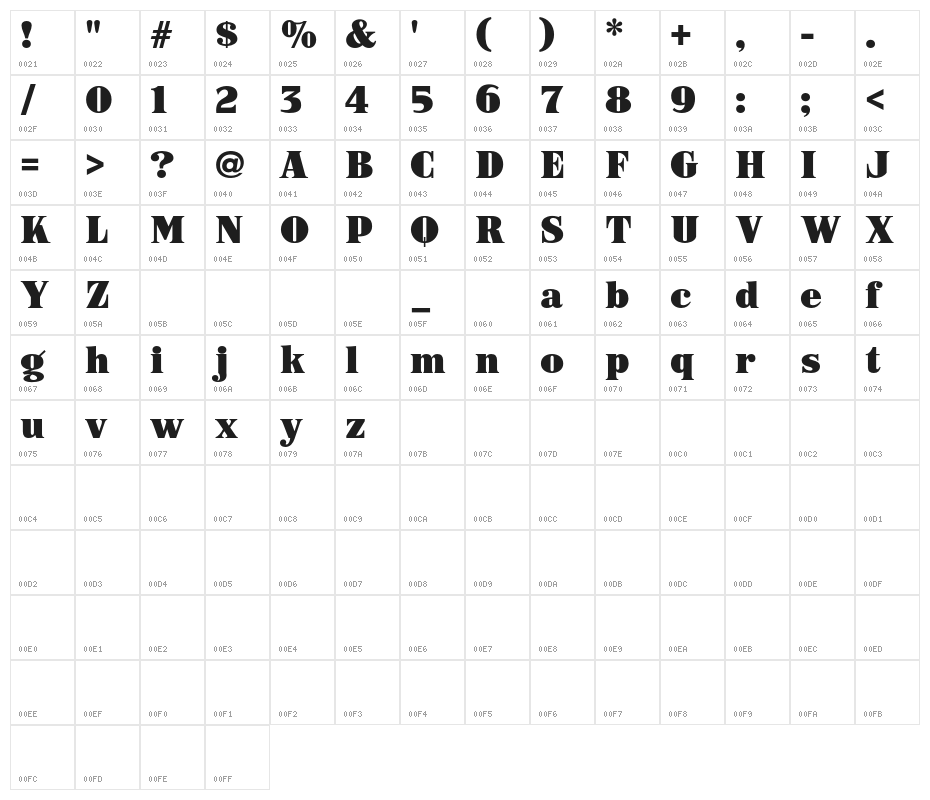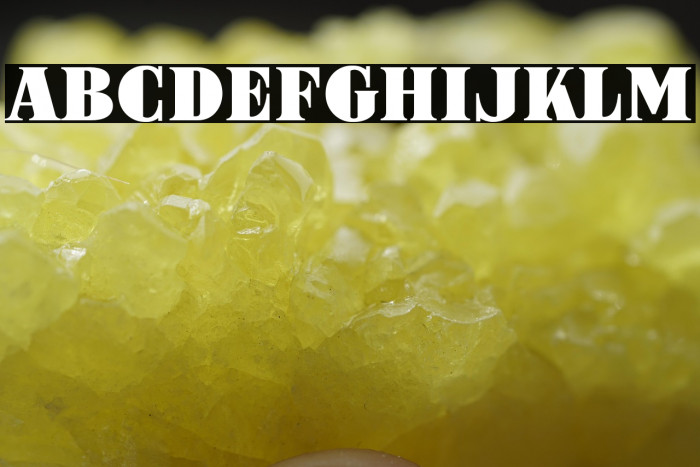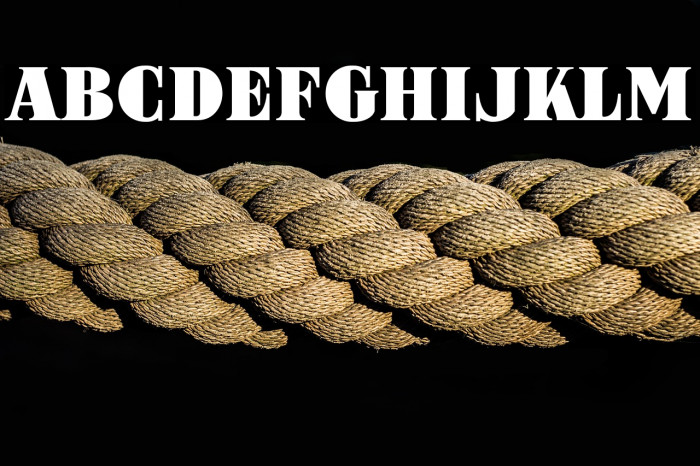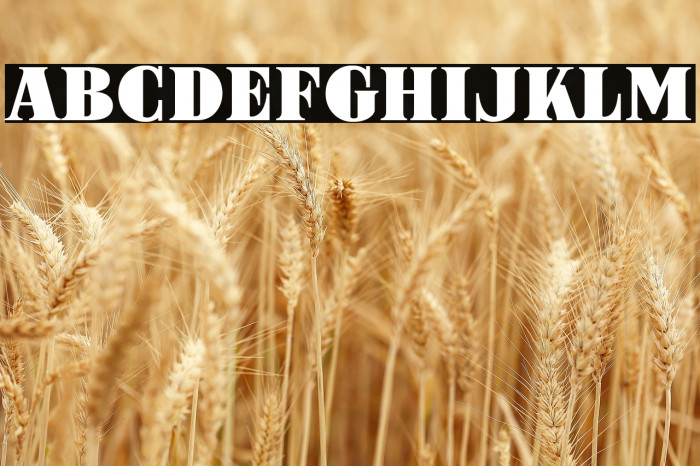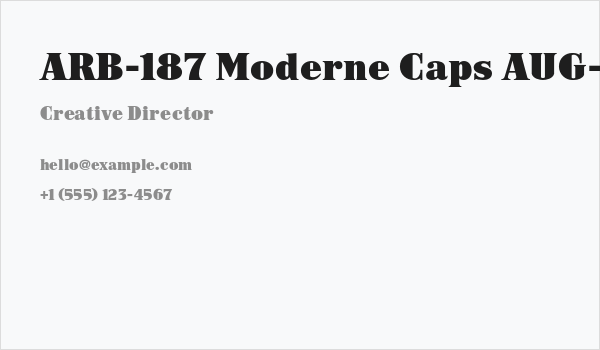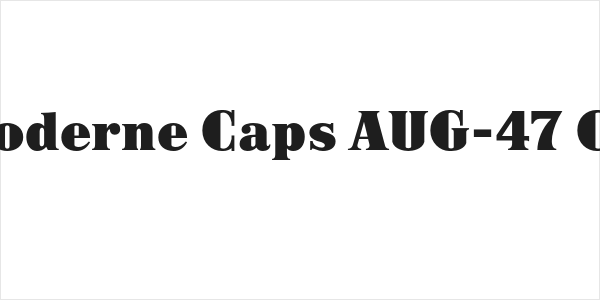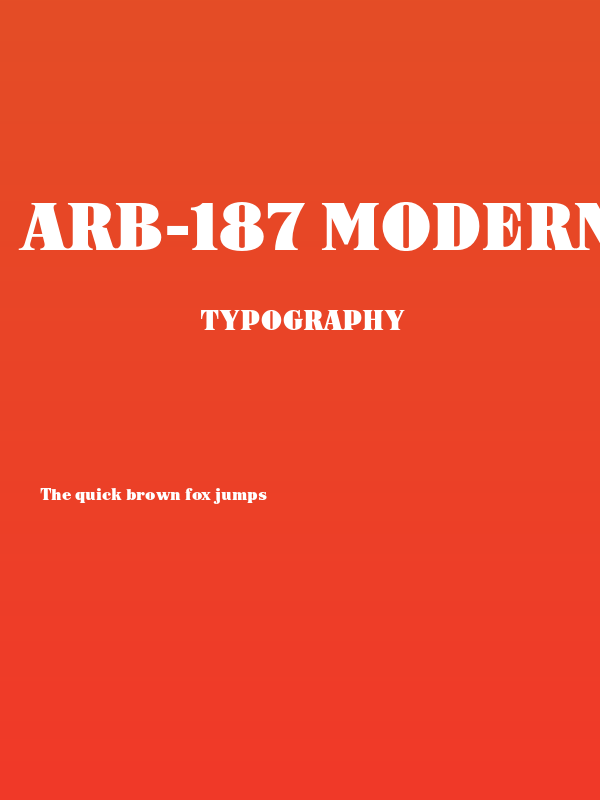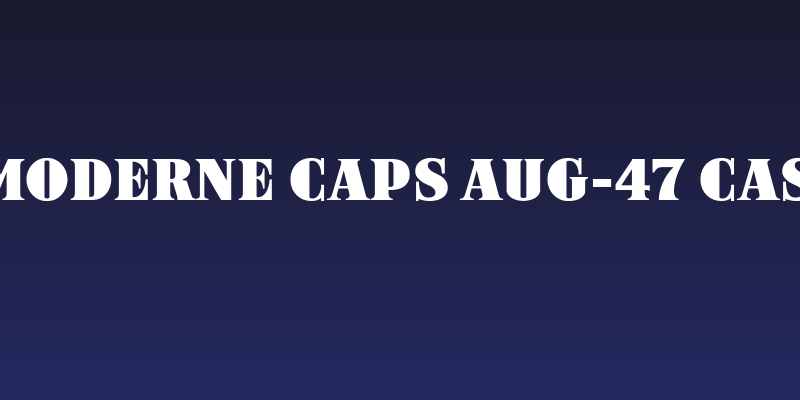
ARB-187 Moderne Caps AUG-47 CAS Normal Font
ARB-187 Moderne Caps AUG-47 CAS Normal Description
This font features bold, strong characters with a classic serif style. The uppercase letters are particularly striking, with thick vertical lines and contrasting thin horizontal strokes, giving them a robust and authoritative appearance. The lowercase letters maintain a similar weight and style, ensuring consistency throughout the typeface. The numerals are equally bold, making them stand out clearly. Special characters are included, each designed with the same attention to detail and weight, ensuring they integrate seamlessly with the letters and numbers. The overall design is reminiscent of traditional serif fonts but with a modern twist, making it versatile for various design needs.
Overall StyleClassic